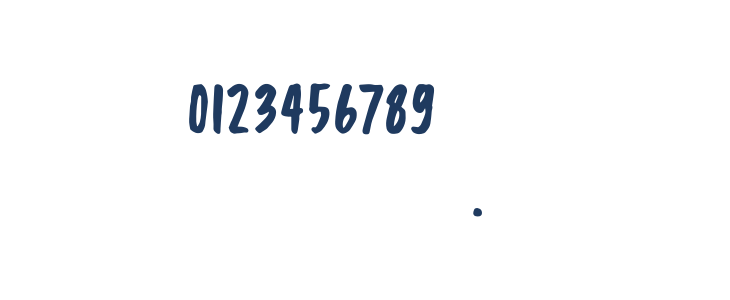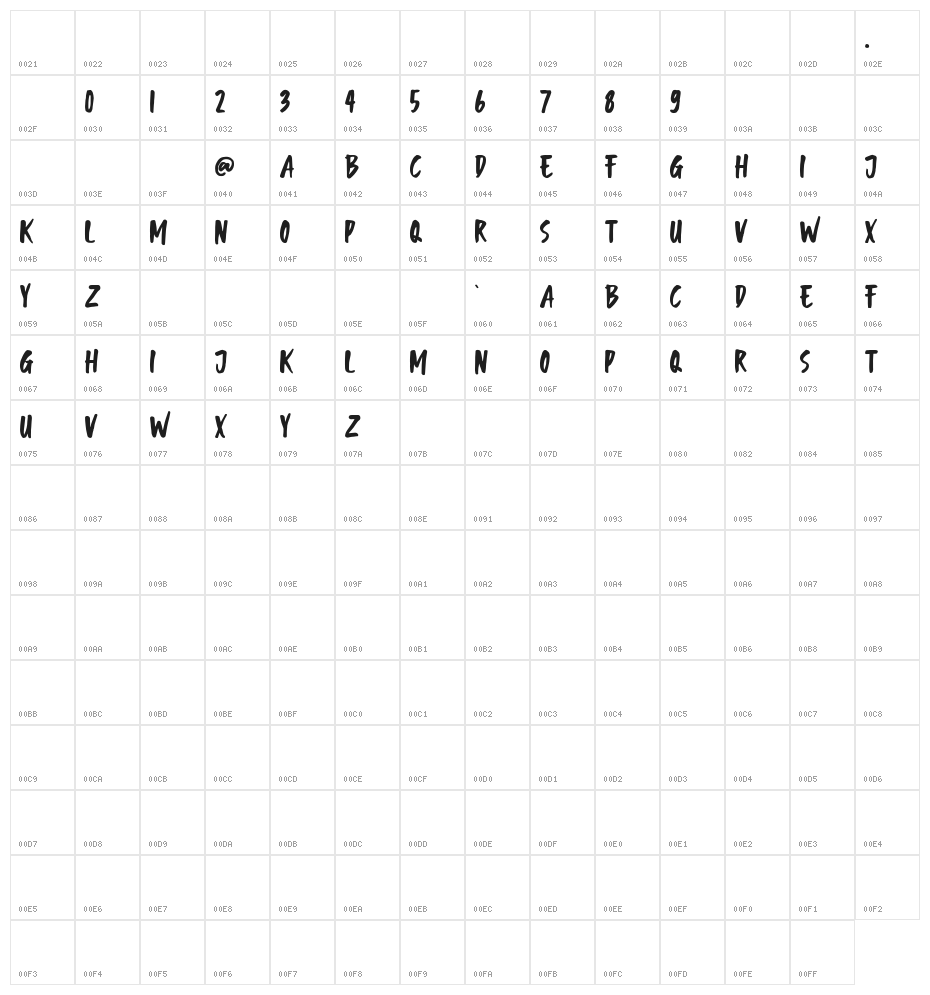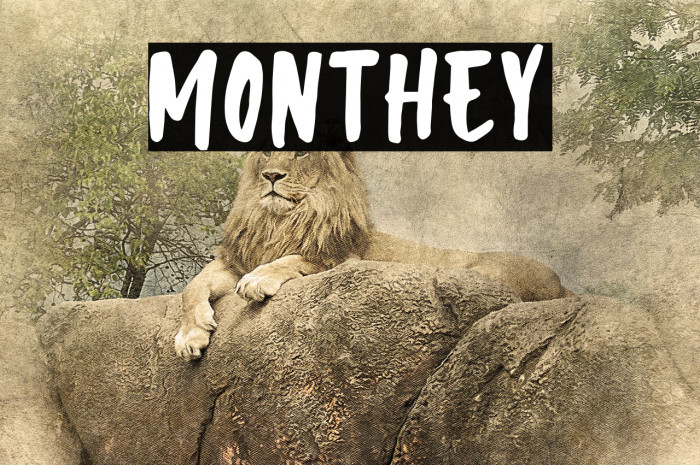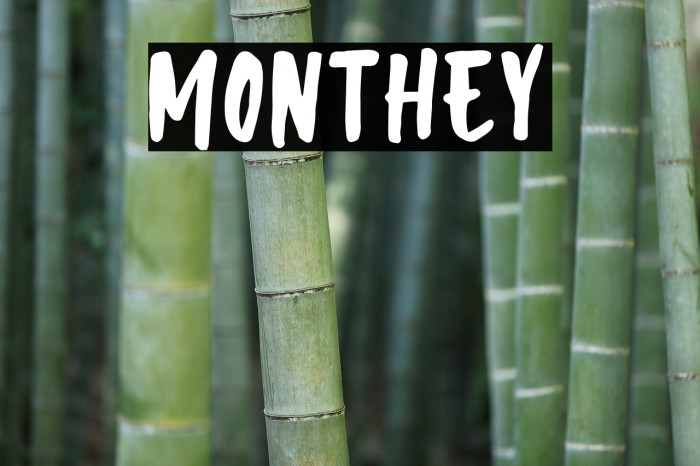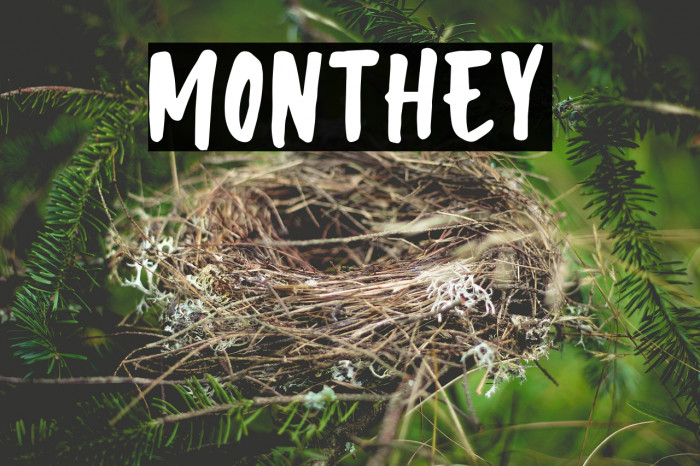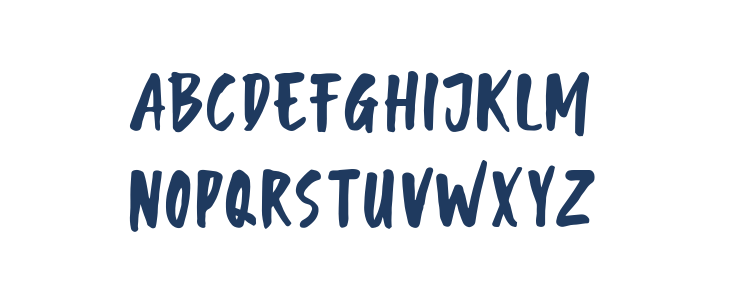
Monthey Font
Monthey Description
This font features a bold, handwritten style with a playful and energetic appearance. The letters are slightly irregular, giving it a casual and informal feel. The strokes are thick and consistent, contributing to its boldness and making it highly legible. The characters have a slight slant, adding to the dynamic and lively nature of the font. It is well-suited for creative projects where a personal touch is desired. The numbers and special characters maintain the same bold and playful style, ensuring consistency across all elements.
| Proposed Projects | Ideal for posters, greeting cards, social media graphics, and branding projects that require a personal and lively touch. |